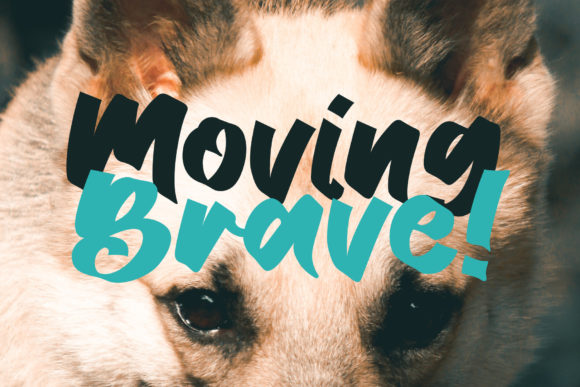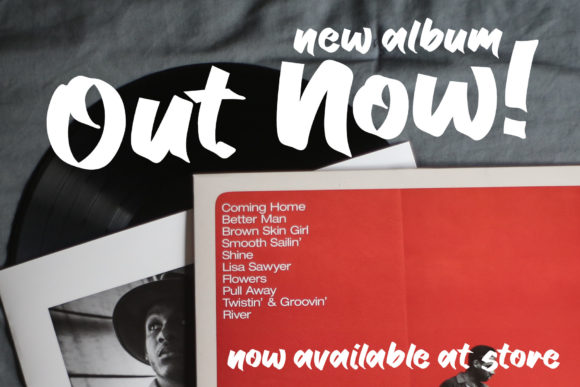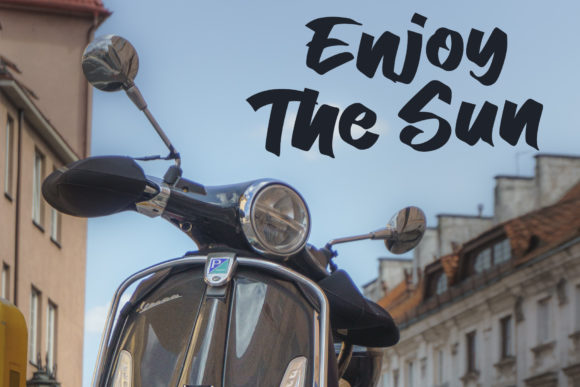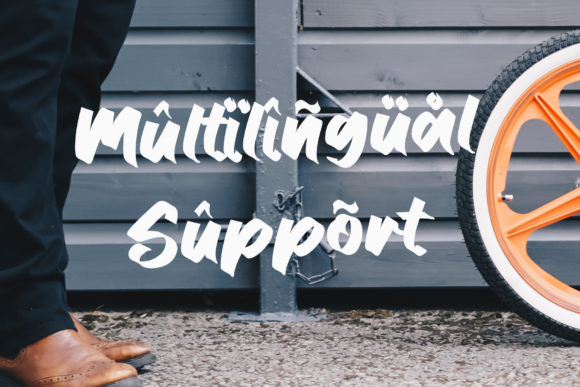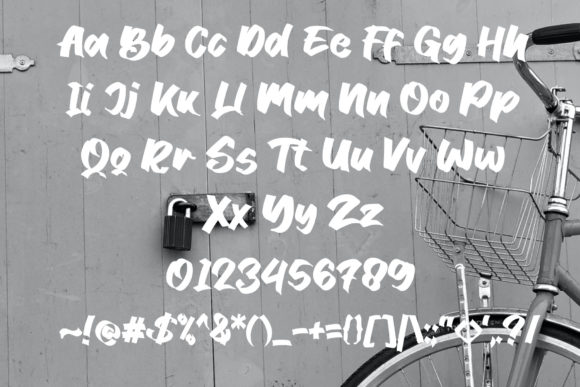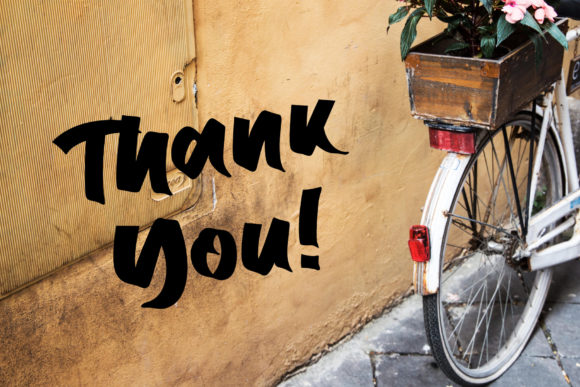
Introduction to Melvines Font
Melvines is a gorgeous and bold brushed handwritten font, crafted to give your headlines and logotype projects a stylish touch.
This font reads as strong, confident, and dynamic and can add tons of nostalgic character to your designs .